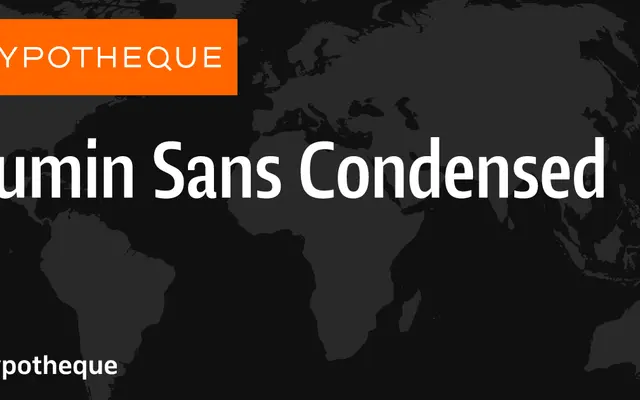
Lumin Sans Condensed
A condensed cut within Typotheque's Lumin Sans system, spanning six weights from Hairline to Bold with matching italics and variable font support.
Part of the broader Lumin family that includes upright, sans, display and variable subfamilies, the Condensed cut runs from Hairline through to Bold with full italic companions at each weight. Individual styles are named after world cities, hinting at the family's international scope. Variable font availability across the system adds flexibility for screen and editorial use.
Lumin Sans Condensed sits within the broader Lumin Sans system, a humanist sans-serif family with condensed proportions, variable axis support, and extensive weight range suggesting a contemporary humanist design approach.